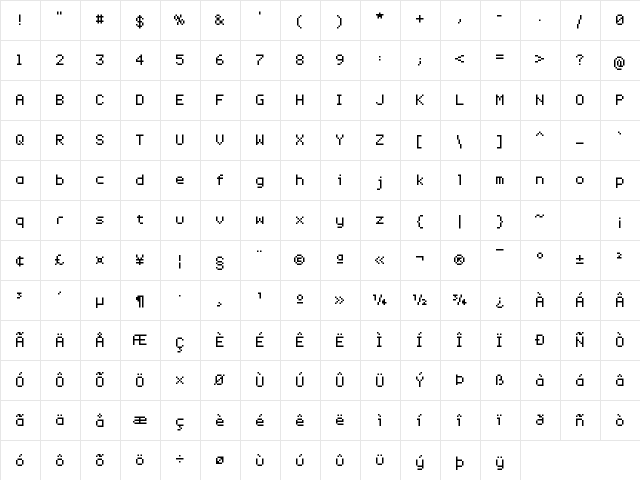
EnterCommand Medium
Design Context for EnterCommand Typeface
EnterCommand is a composed and adaptable typeface that performs quietly and consistently across a wide range of design contexts.